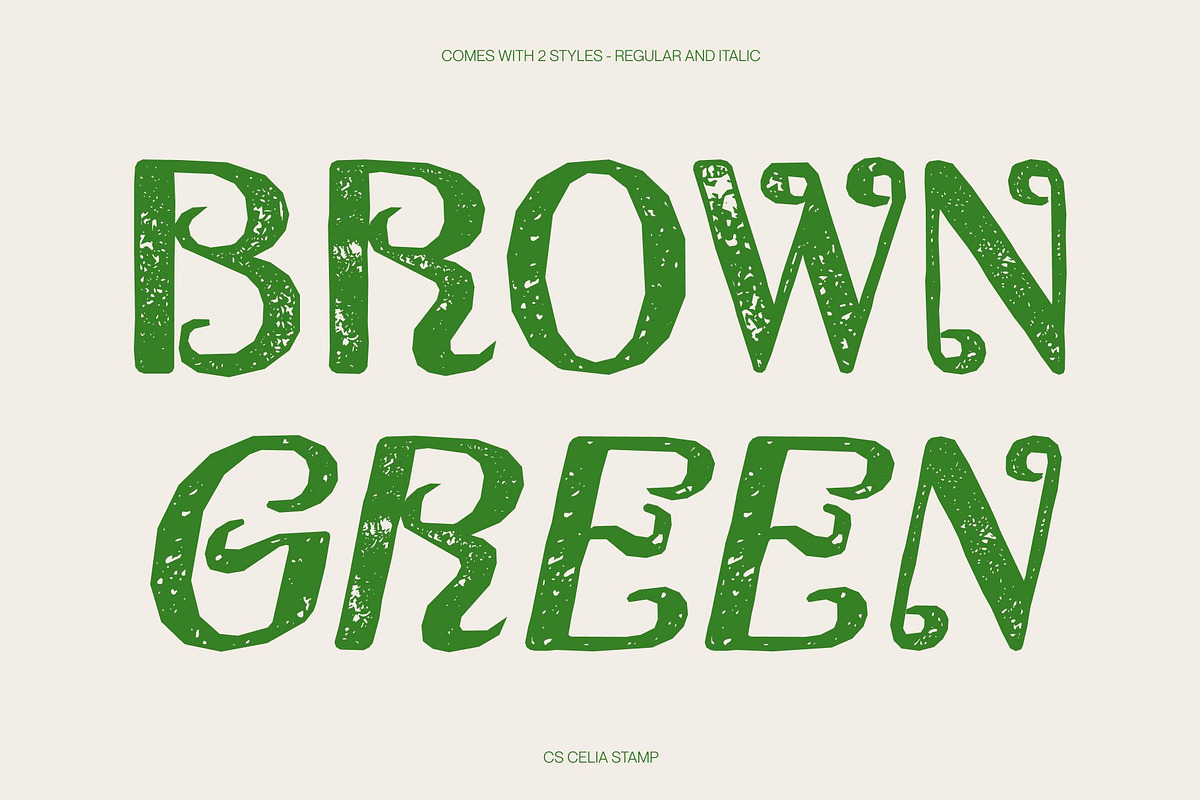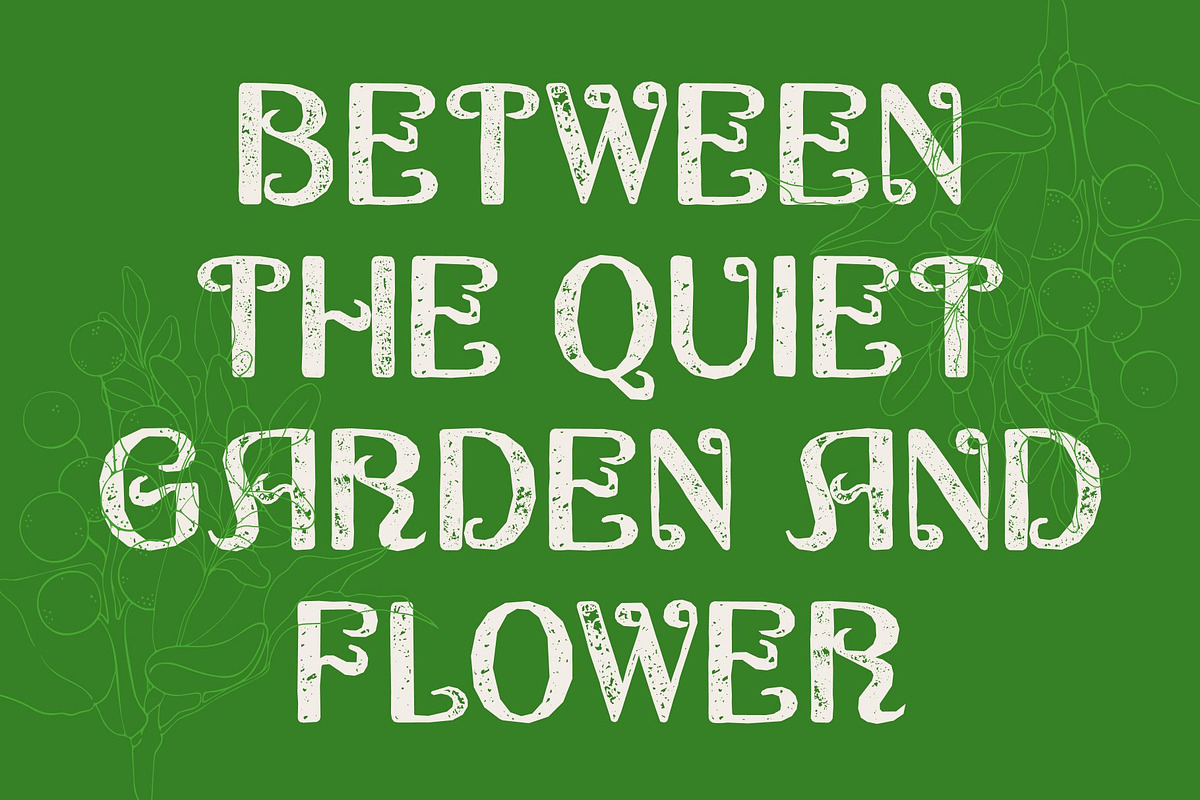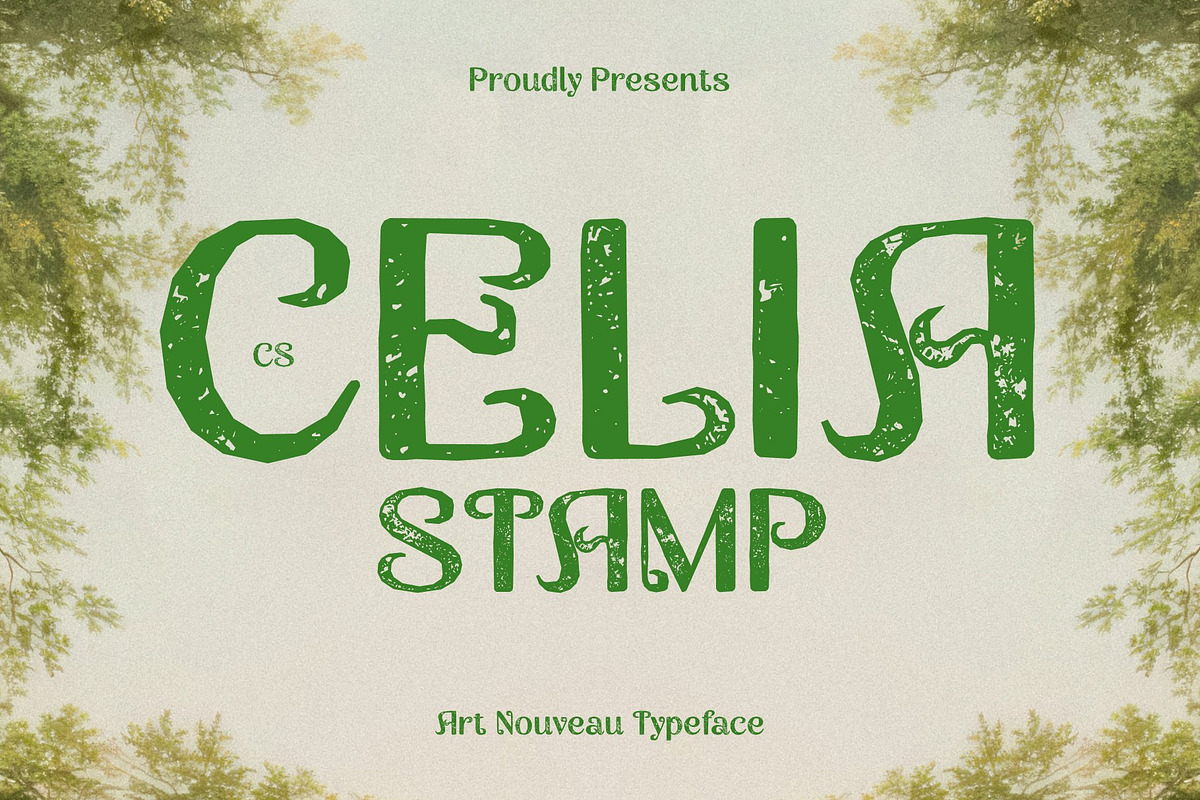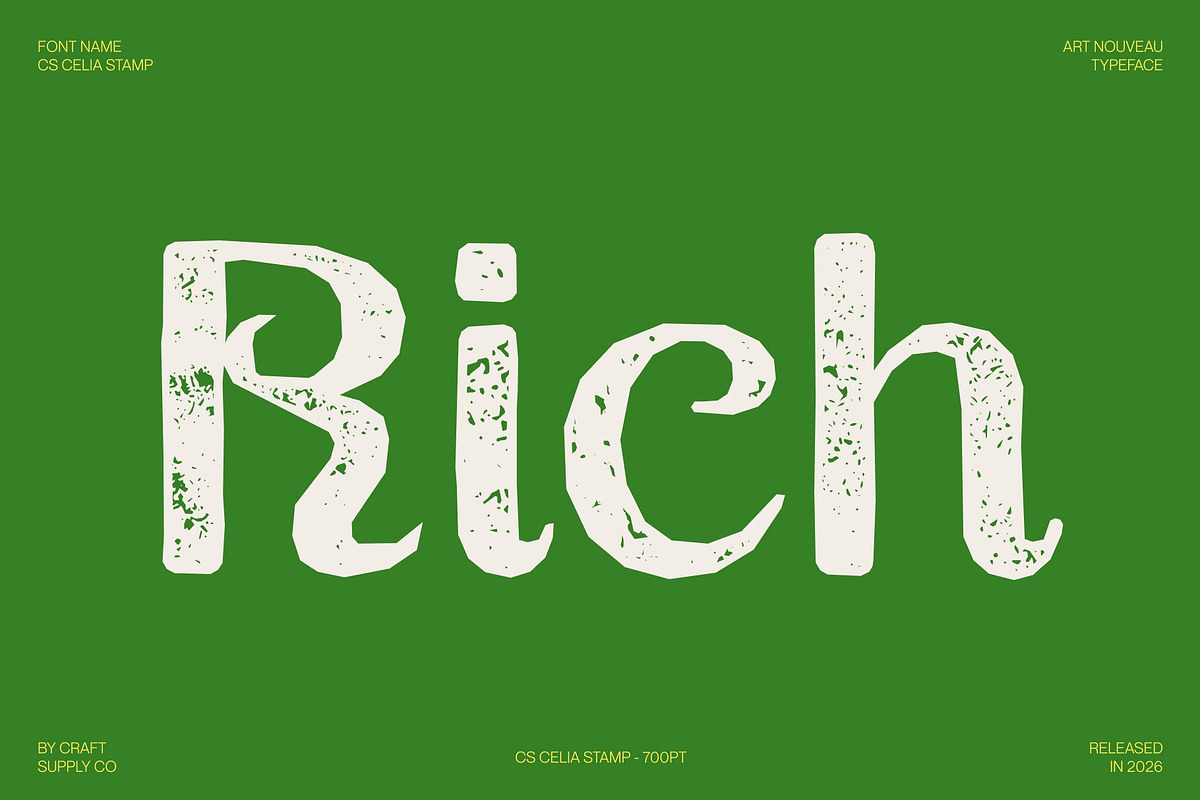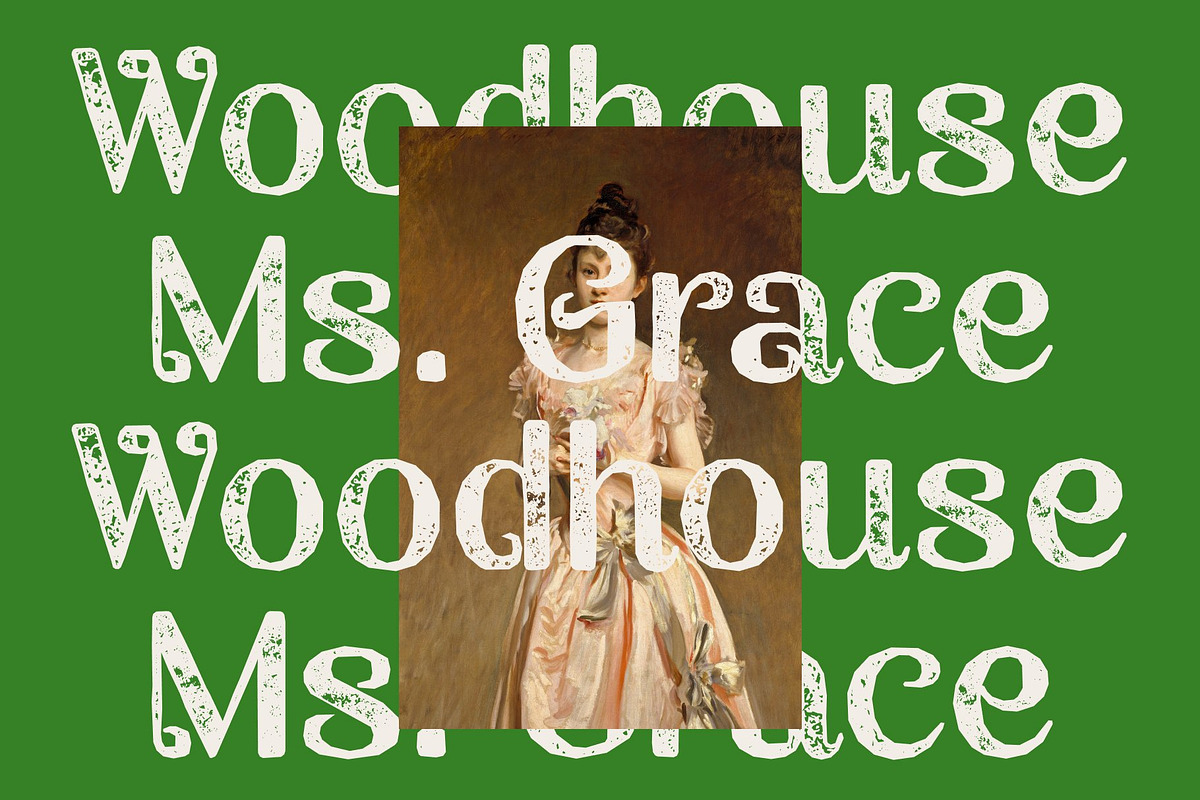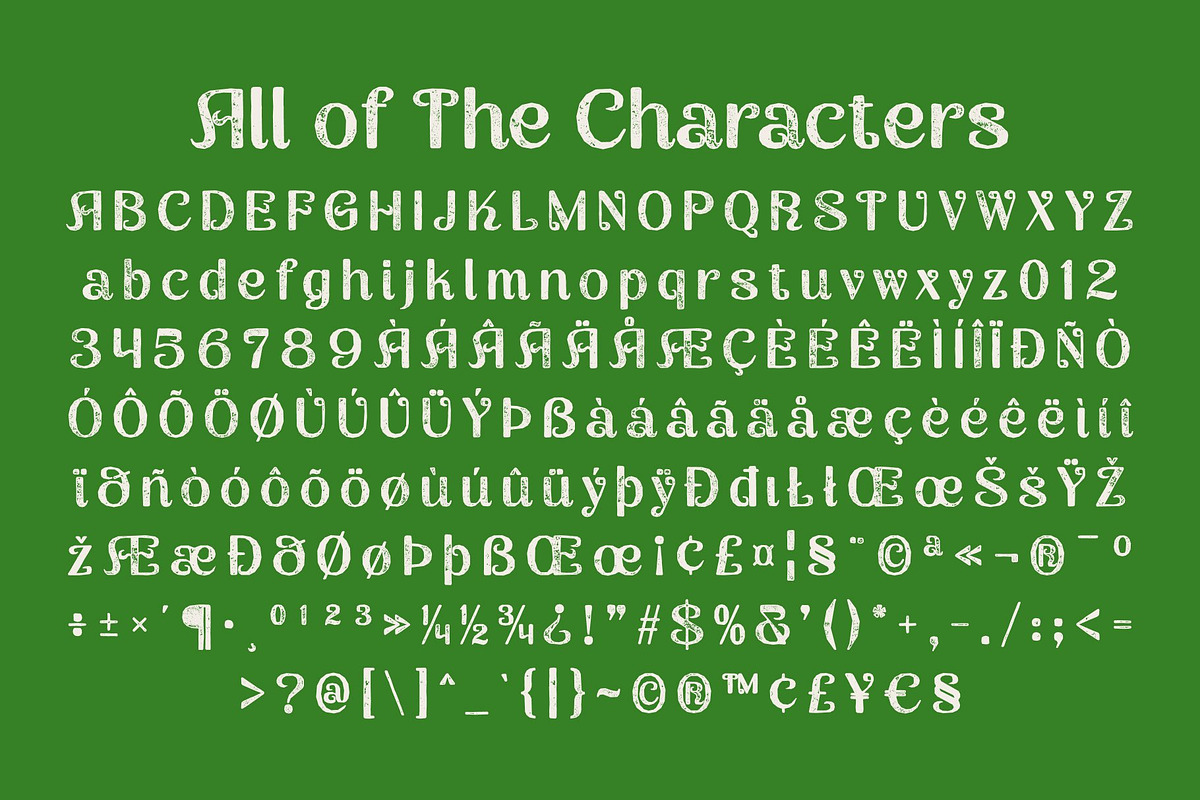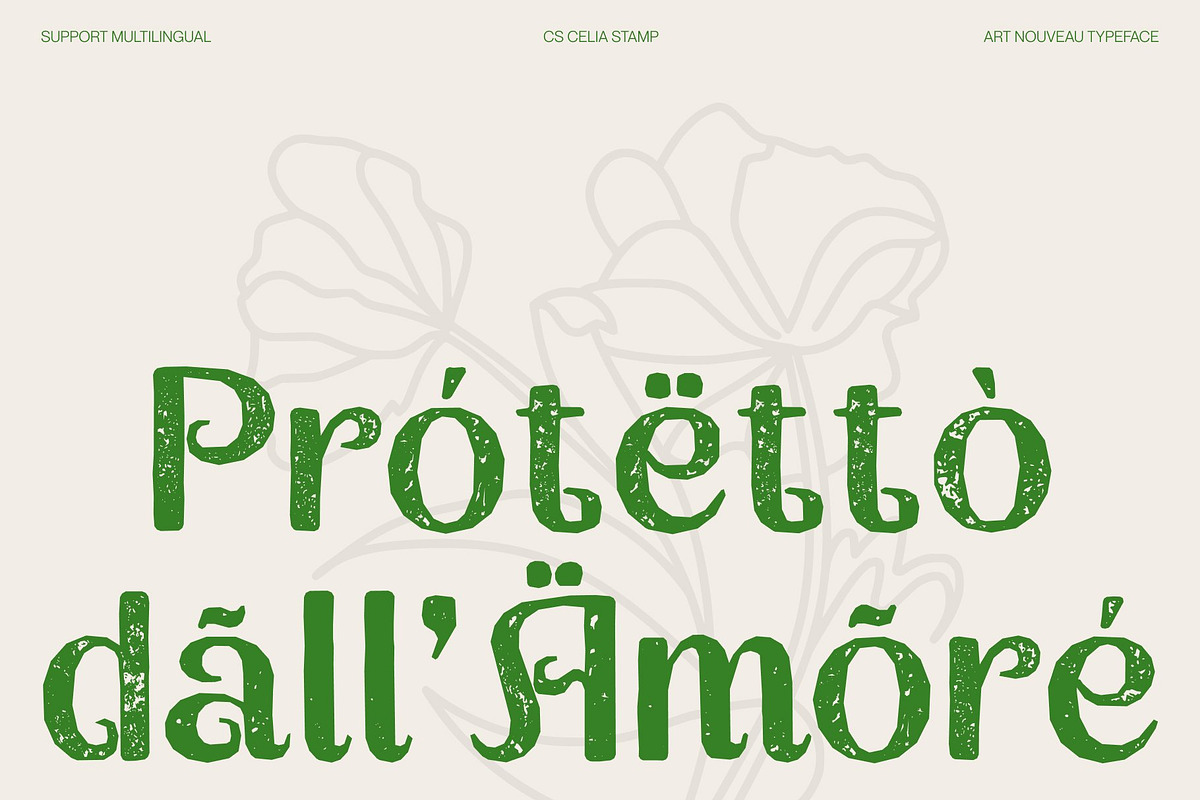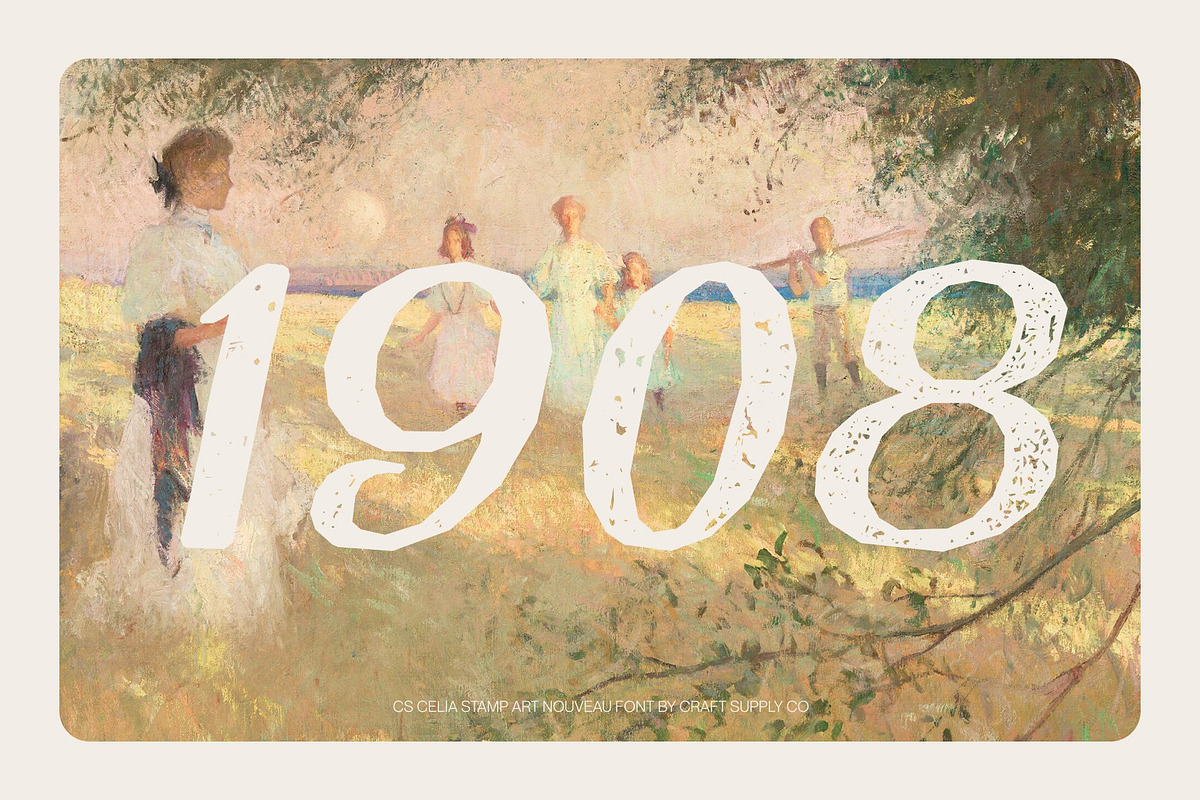
CS Celia Stamp
CS Celia Stamp – Art Nouveau Elegance with Vintage Texture
Modern Sans Serif with Art Nouveau Influence This is a modern sans-serif font enriched with the graceful essence of Art Nouveau design. Its flowing curves and organic details bring a sense of natural beauty and artistic refinement, while its clean structure maintains clarity and contemporary appeal. Enhanced with a stamp effect, the font gains a subtle textured finish that adds a vintage, handcrafted touch.
Graceful Forms with Textured Detail The elegant lines and decorative nuances create a sophisticated visual rhythm that feels both timeless and modern. The stamp texture introduces gentle ink variations and slightly worn edges, adding depth and warmth to the refined letterforms without overwhelming their clean design.
Sophisticated Style with Modern Clarity This font balances ornamental beauty with minimalist precision. Its Art Nouveau-inspired elements provide character and elegance, while its sans-serif foundation ensures versatility and readability making it suitable for both expressive and professional applications.
Perfect for Luxury Branding and Editorial Design Ideal for high-end branding, product packaging, editorial layouts, invitations, and creative campaigns, this font delivers a refined and distinctive typographic voice. Its fusion of Art Nouveau charm and vintage stamp texture creates a look that is elegant, artistic, and effortlessly modern.
CS Celia Stamp Regular
CS Celia Stamp Italic